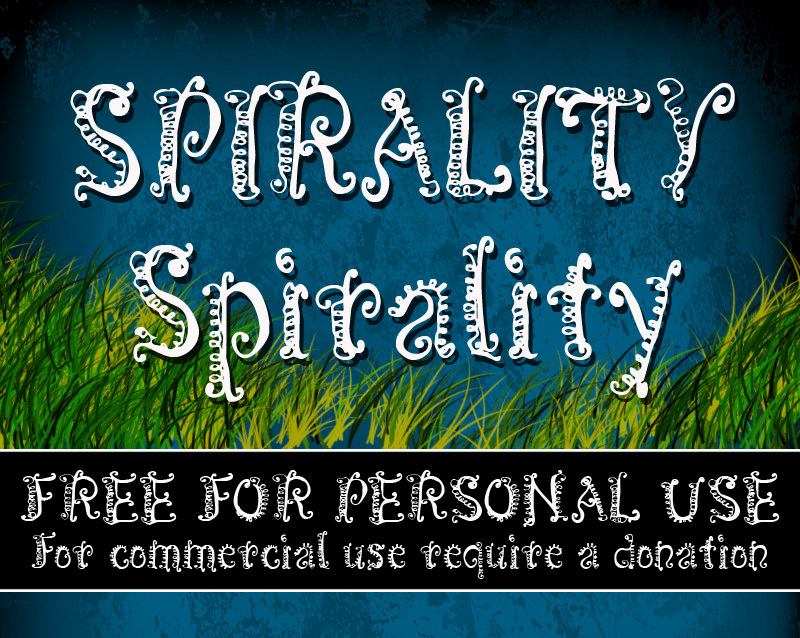
CF Spirality by CloutierFontes is a free curly decorative display font with looping strokes and exuberant ornament. Its letters mix broad rounded curves with thin tendrils, dotted edges, bead-like details, and tight inward spirals. Each character has a lively, hand-drawn silhouette.
It is strongest in theatrical posters, storybook covers, and event titles, where the lettering can become part of the decoration rather than serving as a neutral caption. Boutique packaging and whimsical merchandise also suit its mix of curling detail, unusual proportions, and sturdy central shapes. The recurring coils and tiny knobs make it especially apt for fairy-tale, carnival, and eccentric vintage-inspired themes.
CF Spirality
CloutierFontes
Steve Cloutier